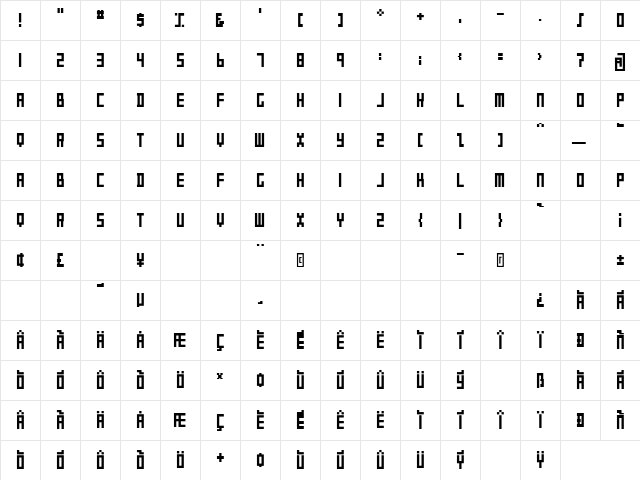
P22 DeStijl Tall Regular
| Foundry | P22 type foundry |
| Designer | Theo Van Doesburg, Richard Kegler |
Design Context for P22 DeStijl Tall Typeface
P22 DeStijl Tall takes a measured approach to typography — its balanced proportions and neutral character make it a reliable workhorse for both digital and print work.